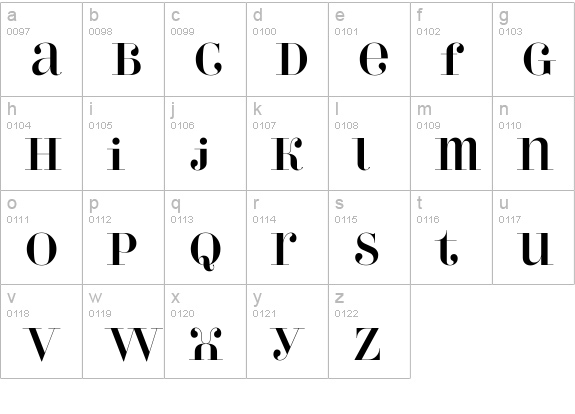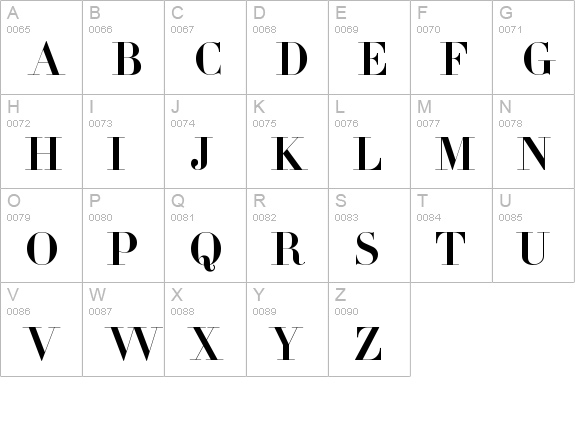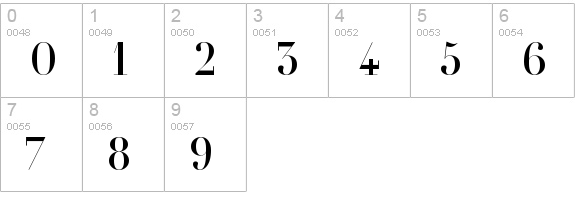
PerlaRegular Font Details
PerlaRegular is a stunning font that effortlessly combines elegance with a touch of modernity. Its timeless appeal makes it perfect for a wide range of design projects, from branding and packaging to invitations and signage. This versatile typeface showcases a delicate balance between clean lines and subtle curves, resulting in a harmonious and visually pleasing aesthetic. The PerlaRegular font exudes confidence and sophistication, making it an ideal choice for those looking to make a statement. Its legibility ensures that your message is conveyed with clarity, while its unique personality adds a touch of individuality to your designs. Whether you're creating a logo for a luxury brand or designing an eye-catching poster, this font is sure to captivate your audience. But what truly sets PerlaRegular apart is the fact that it is free. Yes, you read that right - this exquisite font is freely available to download at FontsMarket.com. Now, you can elevate your design projects without having to worry about breaking the bank. So why wait? Embrace the beauty and versatility of PerlaRegular today and let your creativity soar.